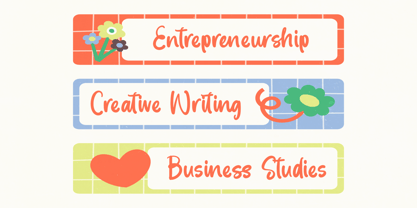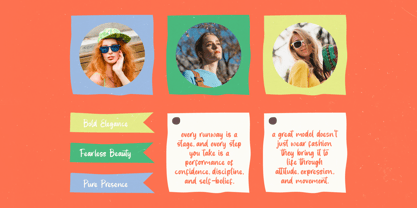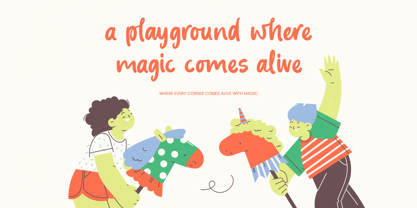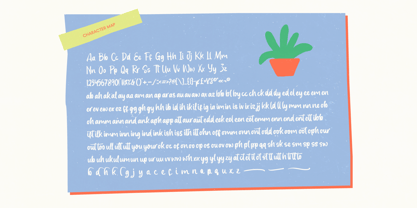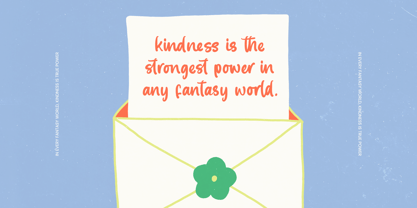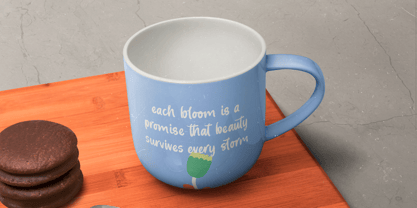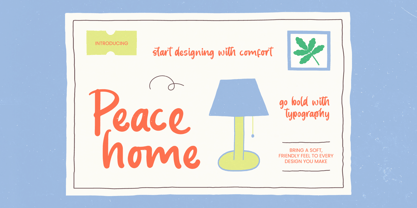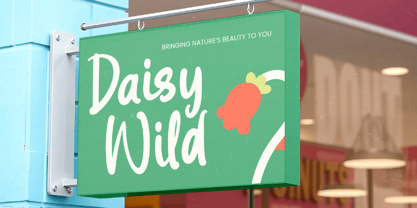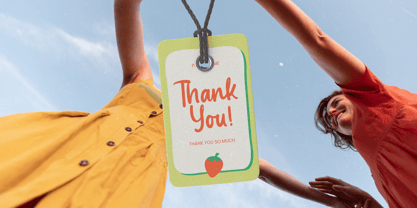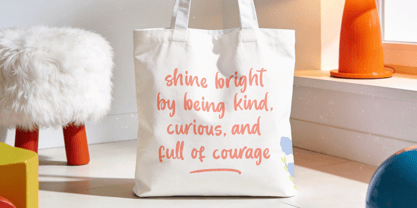
Peace Home
Die Schriftfamilie Peace Home wurde von Heru Utama Putra entworfen und von Letterena Studios veröffentlicht. Peace Home enthält 2 Stile und Familienpaketoptionen. Mehr über diese Familie
Peace Home - Sticky Notes & Quotes
Elevate your creative projects with the organic charm of Peace Home - Sticky Notes & Quotes, a typeface designed to evoke warmth and authenticity. This handcrafted script captures the essence of personal expression, offering a playful yet professional aesthetic that resonates with modern audiences. Created by Letterena Studios, Peace Home - Sticky Notes & Quotes is more than just a font; it is a versatile design tool that brings a human touch to digital environments and print media alike.
Discover the power of fluid storytelling through the artistic curves and rhythmic flow of this unique typeface. Featuring an impressive collection of 165 ligatures and 21 alternates, Peace Home - Sticky Notes & Quotes ensures that every word feels custom-made and naturally executed. The inclusion of decorative swashes allows designers to add a bespoke flair to their layouts, making it easy to achieve a polished, high-end look with minimal effort.